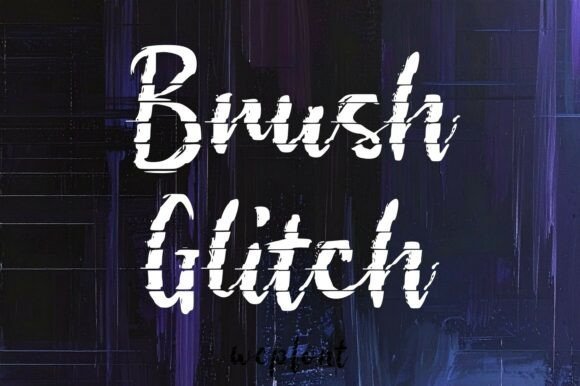
Unleashing the Power of Unconventional Design
Have you ever stared at a blank canvas, waiting for the perfect spark to ignite your creativity? For designers, those moments of inspiration are what drive us to push the boundaries of art and technology. And when that spark hits, it can be a game-changer. For many, that spark came in the form of the “Brush Glitch Font,” a mesmerizing blend of digital artistry that fuses the raw energy of brush strokes with the compelling impact of glitch graphics.
This bold, avant-garde design is not just a font – it’s a statement piece that infuses every project with authenticity and future-forward elements. With its lively, distressed aesthetics, the Brush Glitch Font is the perfect tool for designers looking to add a touch of modernity to their work. Whether you’re working on a branding project or a digital art piece, this font is sure to captivate and inspire.
Brush Glitch Font Key Features
- Font Family: Brush Glitch is a unique, hand-drawn font designed to mimic the look of a digital glitch.
- Character Set: Includes a wide range of characters, including uppercase and lowercase letters, numbers, and punctuation marks.
- Unique Characteristics: Brush Glitch features a distressed, glitchy aesthetic with subtle texture and irregularities, giving it a one-of-a-kind look.
Brush Glitch Font Review
Overall, I think the Brush Glitch Font is a unique and interesting font that can add a bit of personality to your design projects. ✨ I love the distressed, hand-drawn look that it has, and it’s perfect for creating a retro or vintage vibe. It’s also great for use in social media graphics, blog posts, and other digital content where a more casual tone is desired.
The Brush Glitch Font is highly customizable, with many options for adjusting the size, color, and style of the font. This makes it easy to integrate into your existing design workflow and ensures that it will look great across a variety of different platforms.
- Unique and interesting design that adds personality to your projects
- Perfect for creating a retro or vintage vibe
- Great for use in social media graphics, blog posts, and other digital content
- May be difficult to read in smaller sizes or at a distance
- Can look cluttered or overwhelming if used excessively
- Not ideal for use in formal or professional contexts
Overall, I would say that the Brush Glitch Font is a great choice for designers who want to add a bit of personality and flair to their projects. While it may have some limitations, it’s a versatile and customizable font that can be used in a variety of different contexts.
Brush Glitch Font is perfect for creating a retro or distressed look in your designs. Tips for getting the most out of it include:
– Experimenting with different font sizes and colors to create a visually interesting effect.
– Combining Brush Glitch Font with other fonts to create a unique and eye-catching design.
– Using the font to create a sense of nostalgia or retro charm in your designs.